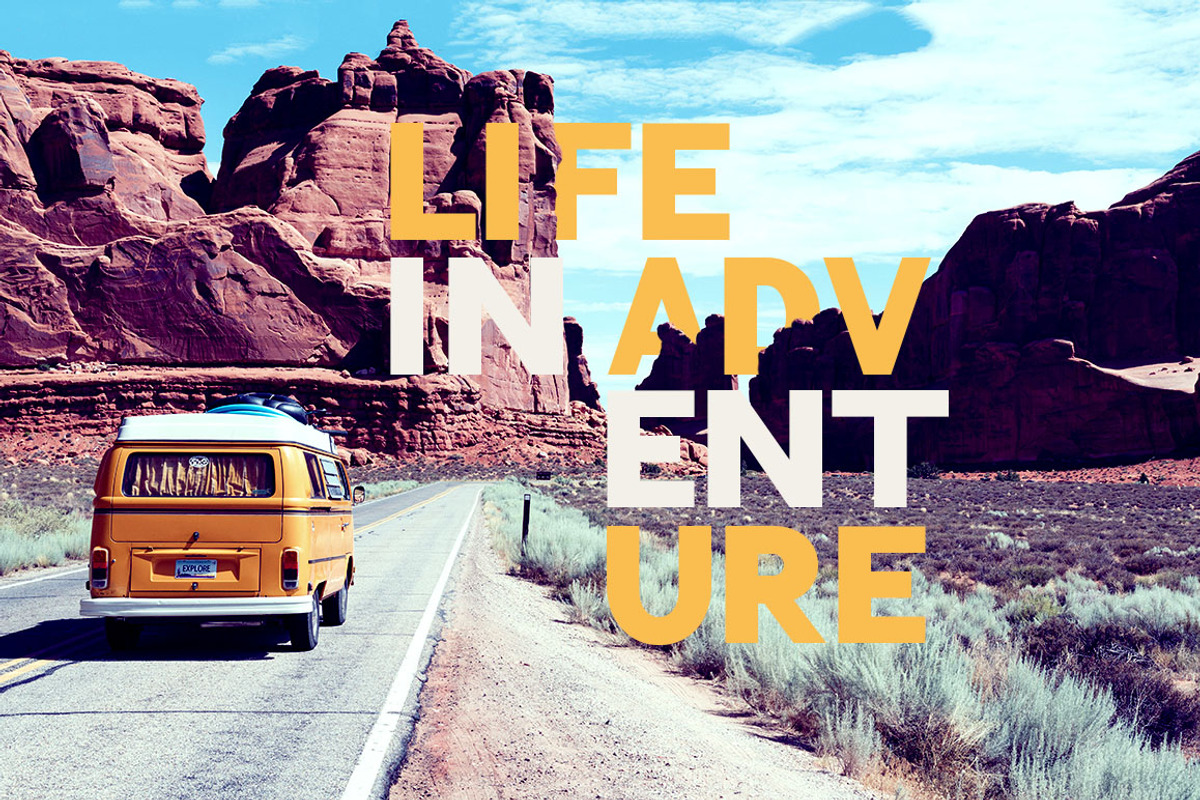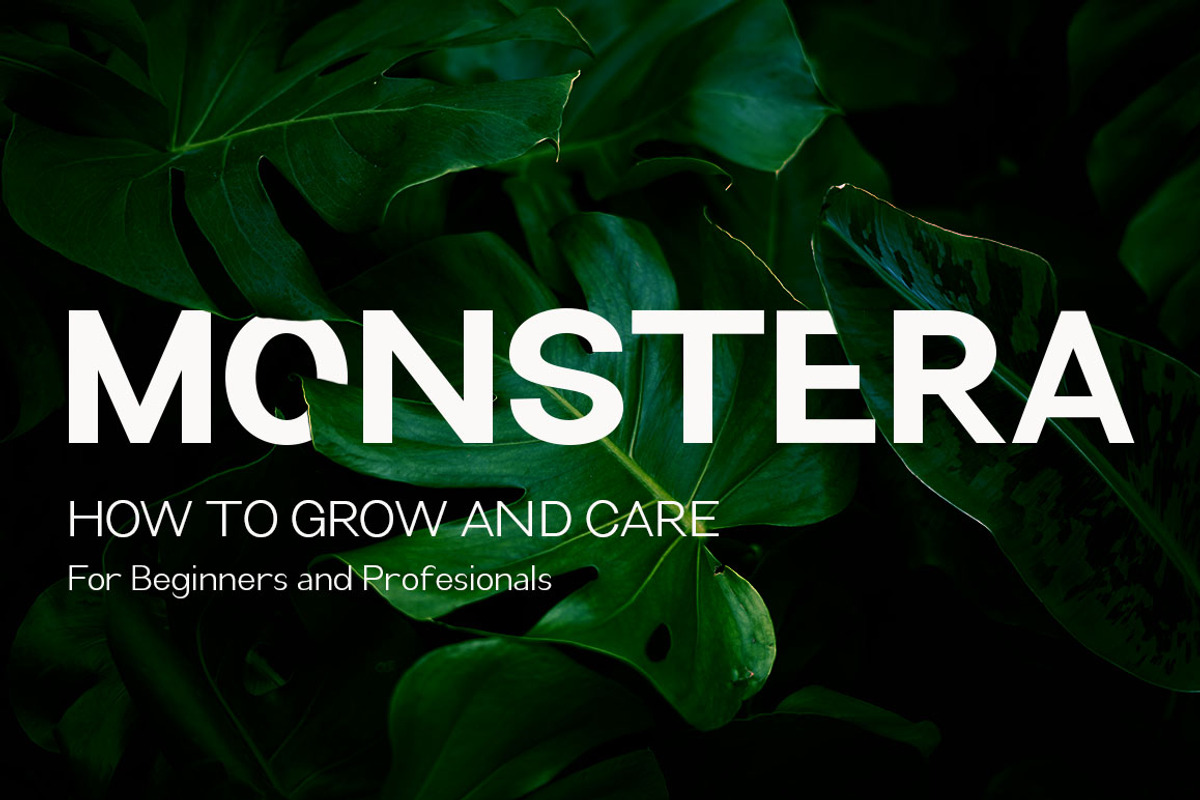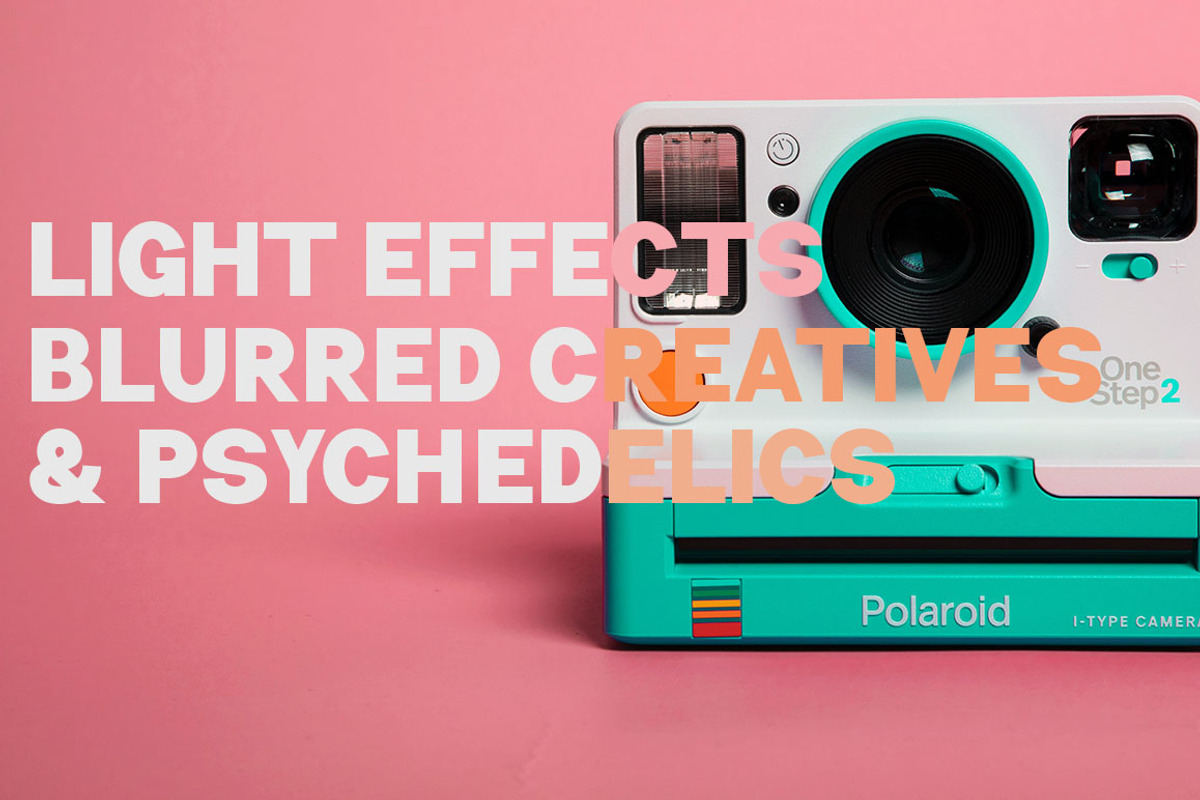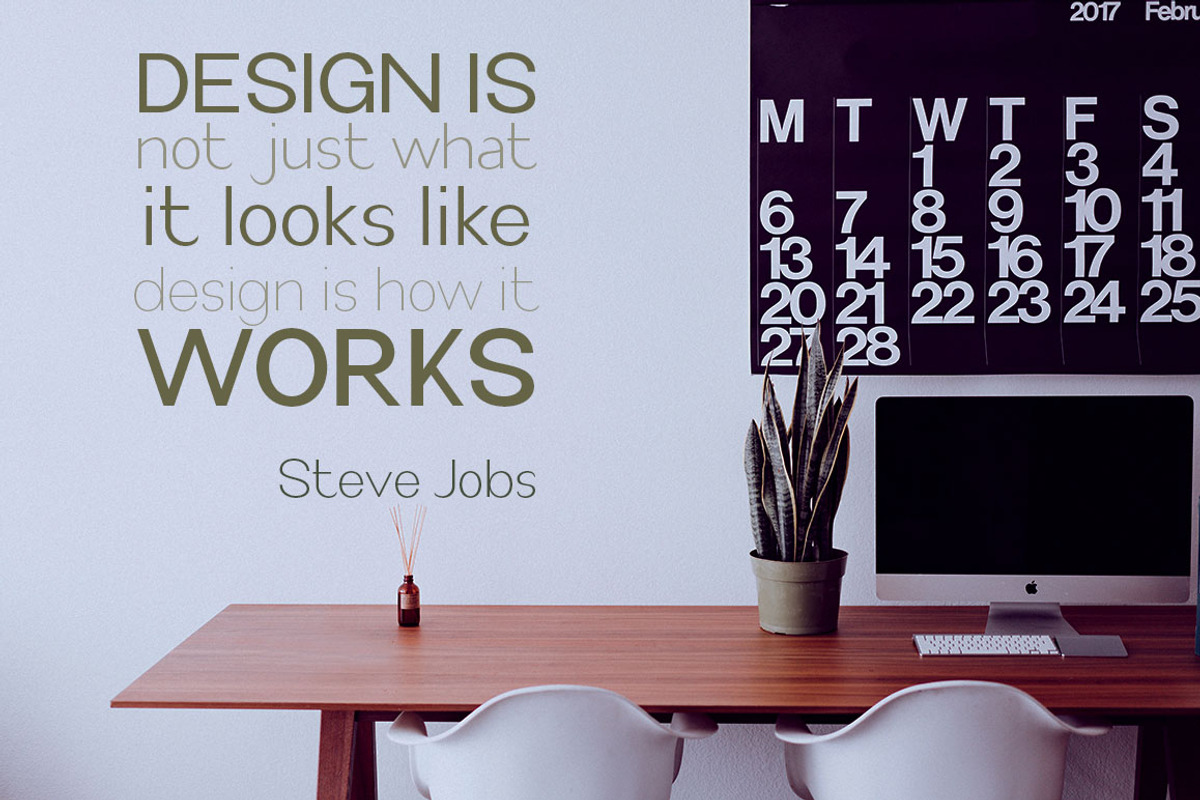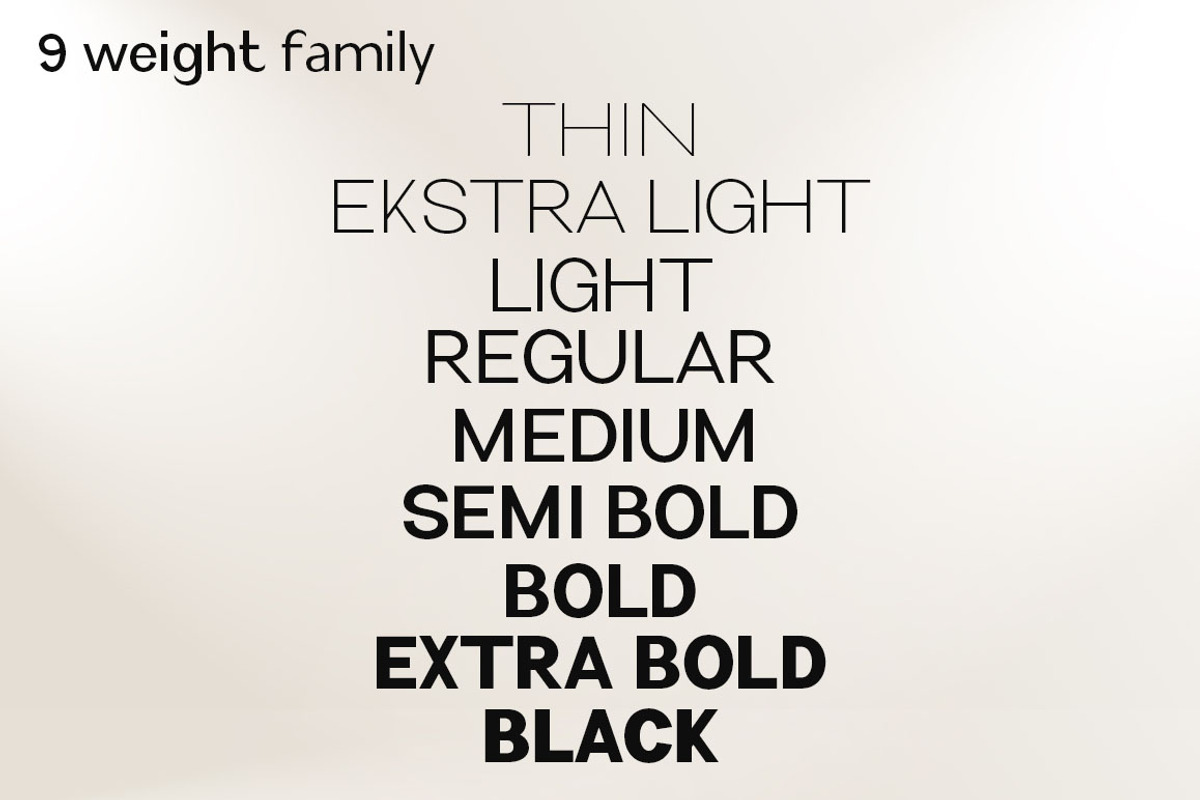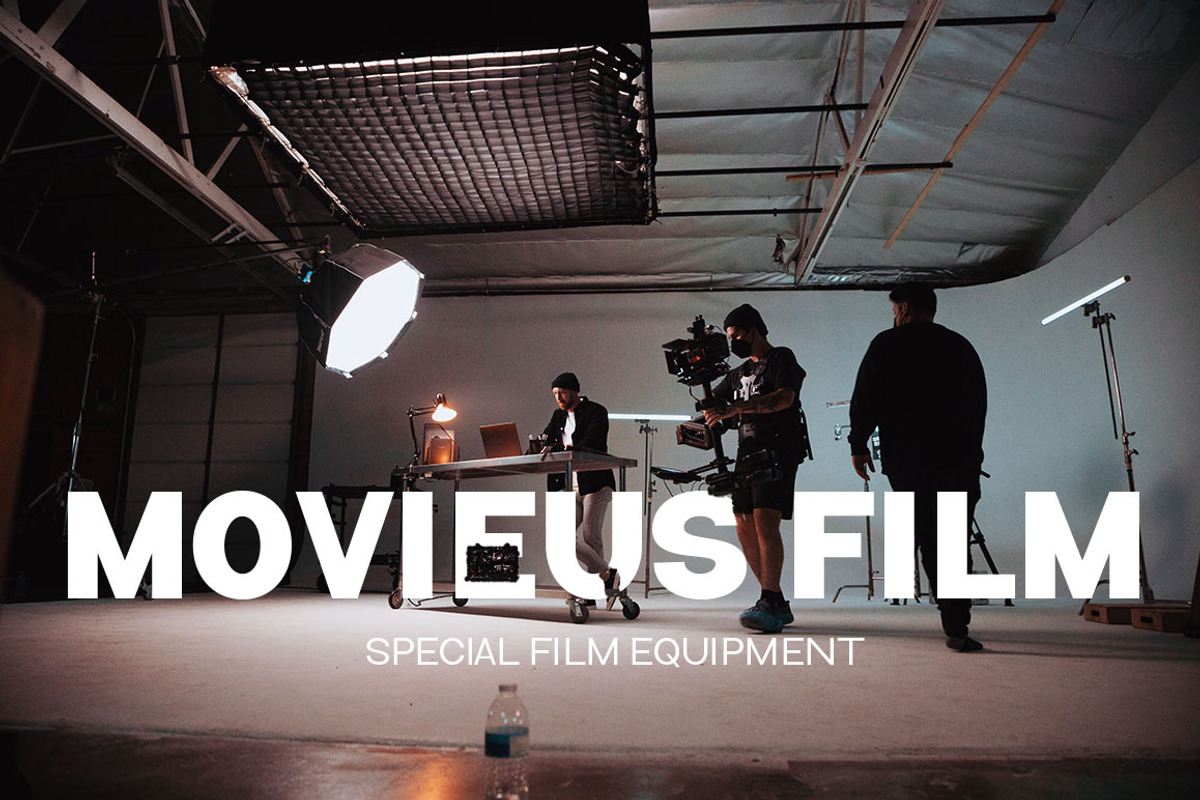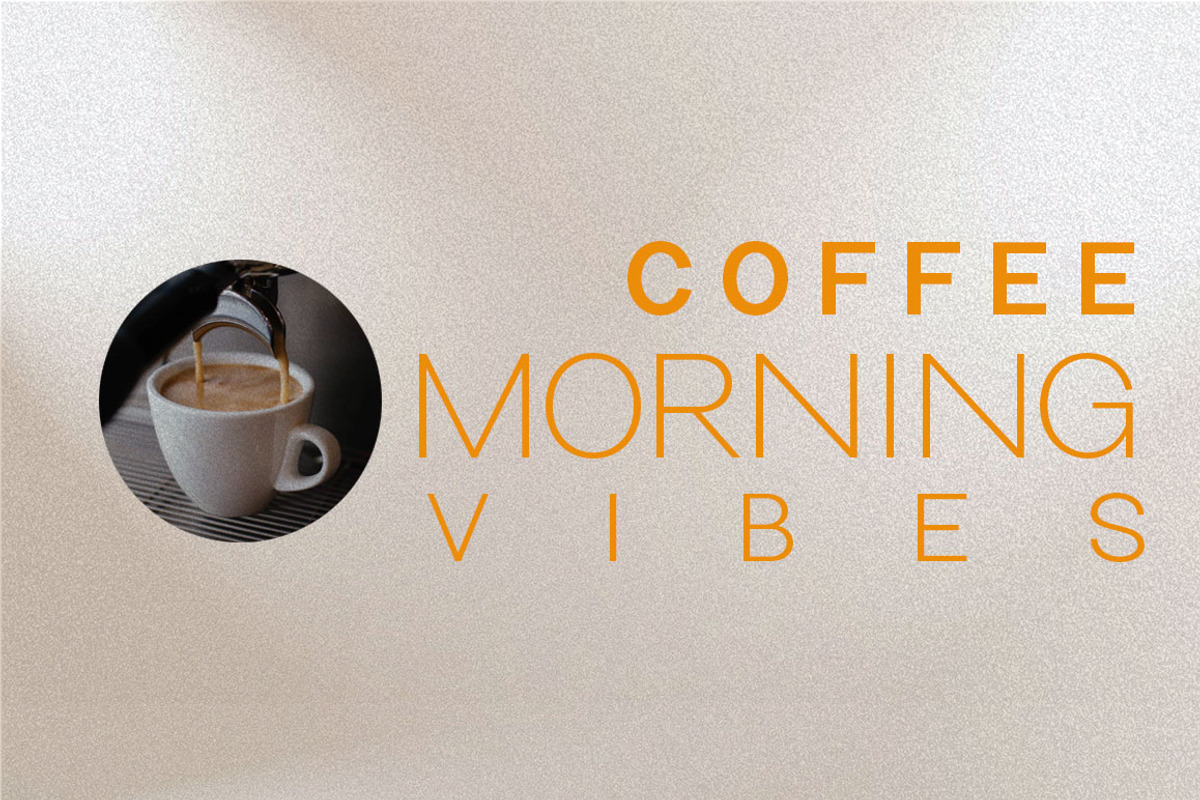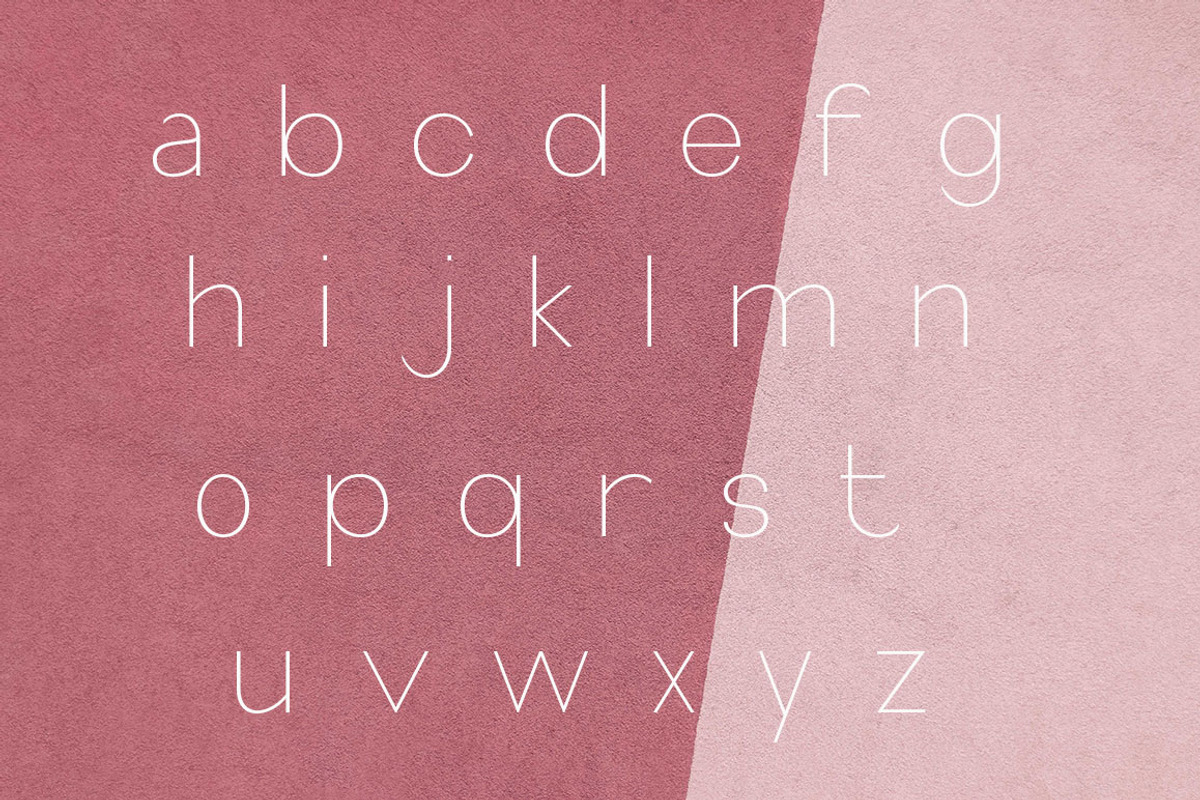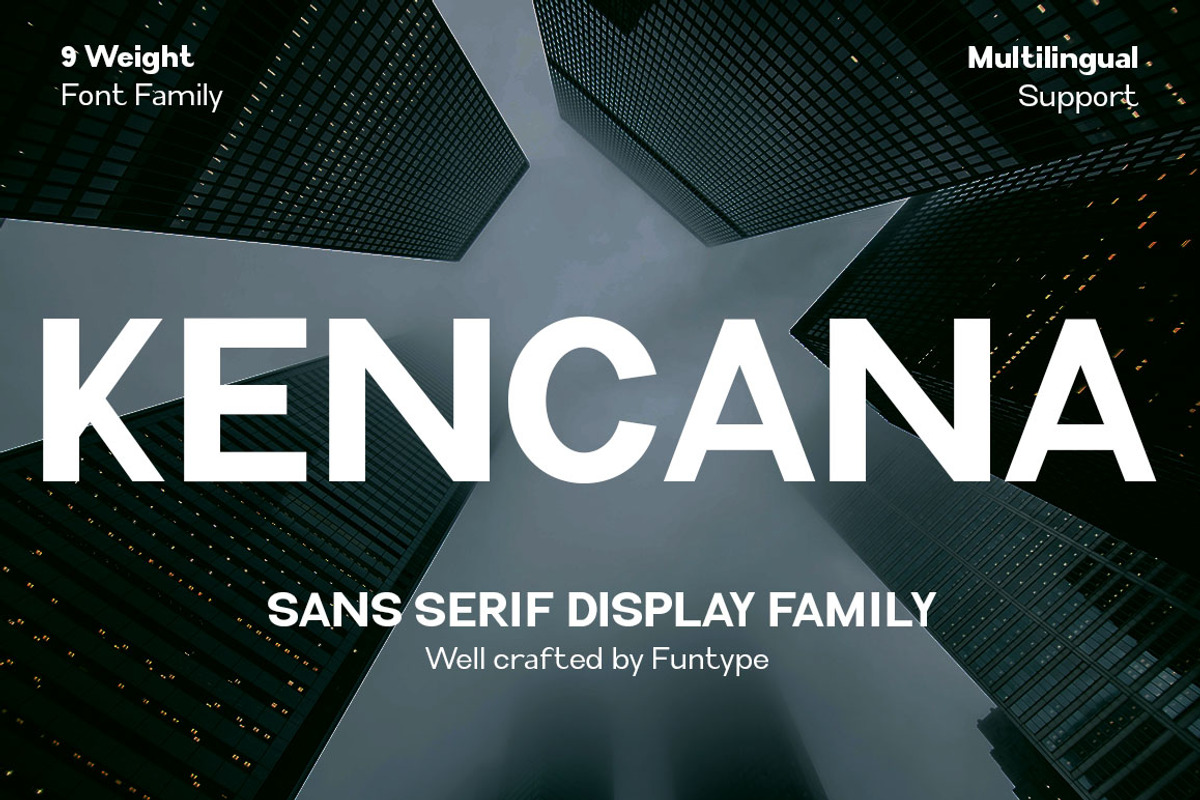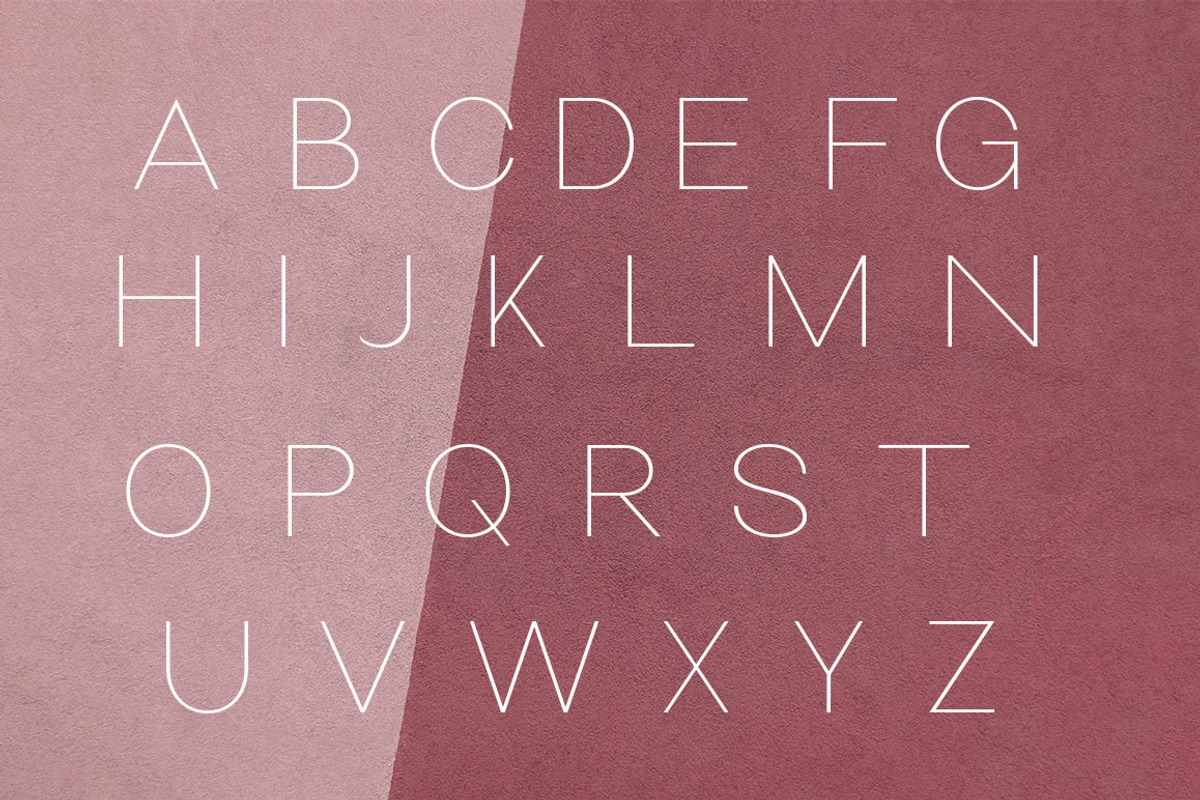
Kencana
Kencana is a geometric sans serif display family and clean variable font. The typeface is versatile to blend in your design- with 9 weight, ranging from thin, extra thin, light, regular, medium, thin, semibold, bold, extrabold, black. Perfect anywhere you need a right finas touches for branding, publishing, titles, book, magazine and any projects you done.